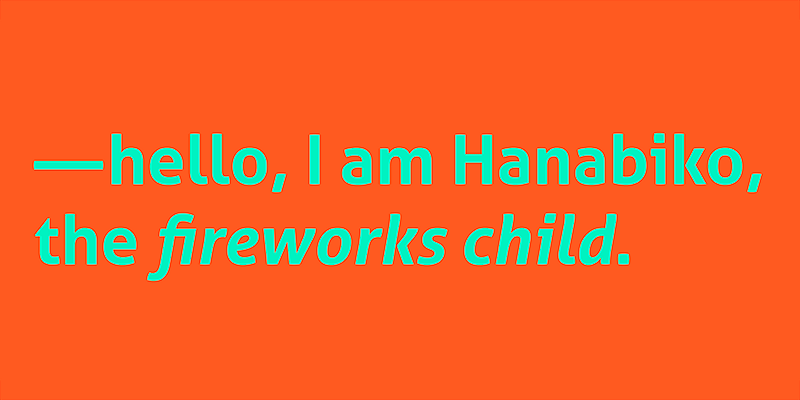
Aller is a unique sans serif design with a warm, approachable, tone-of-voice. The family consists of three weights plus matching italics, and a more extreme Display weight for headlines.